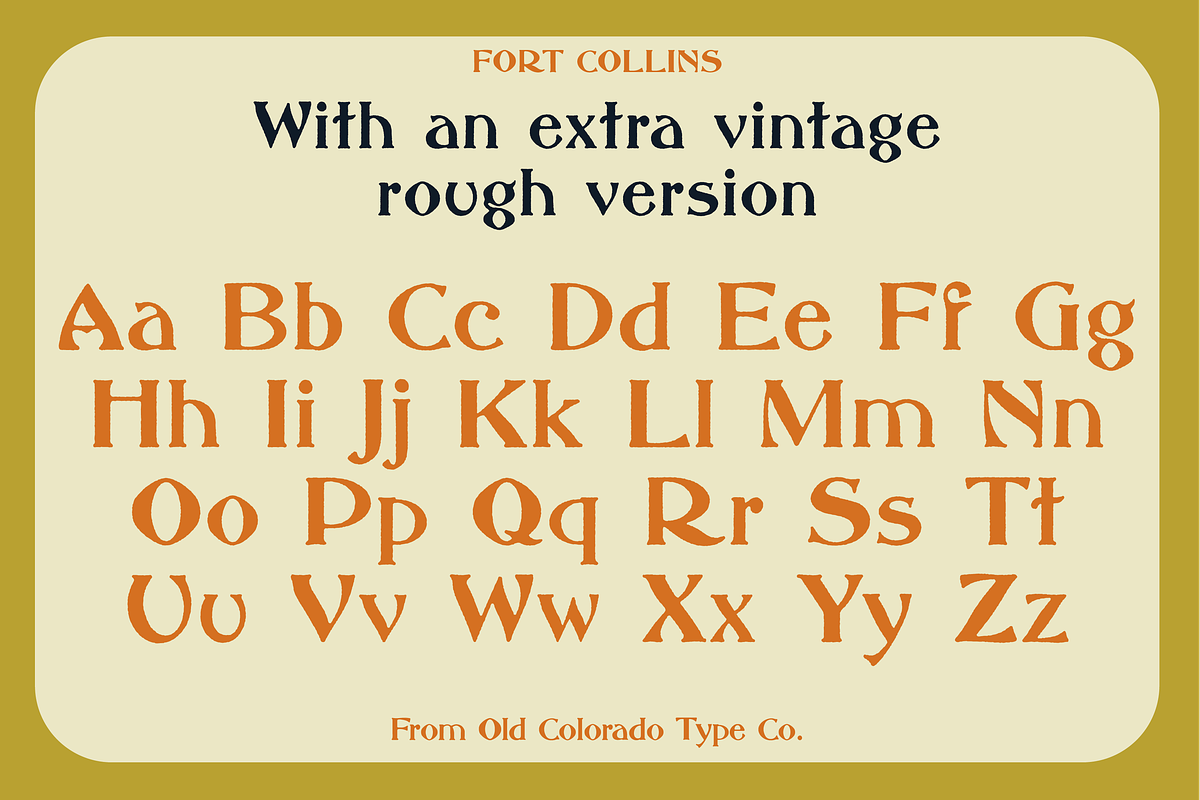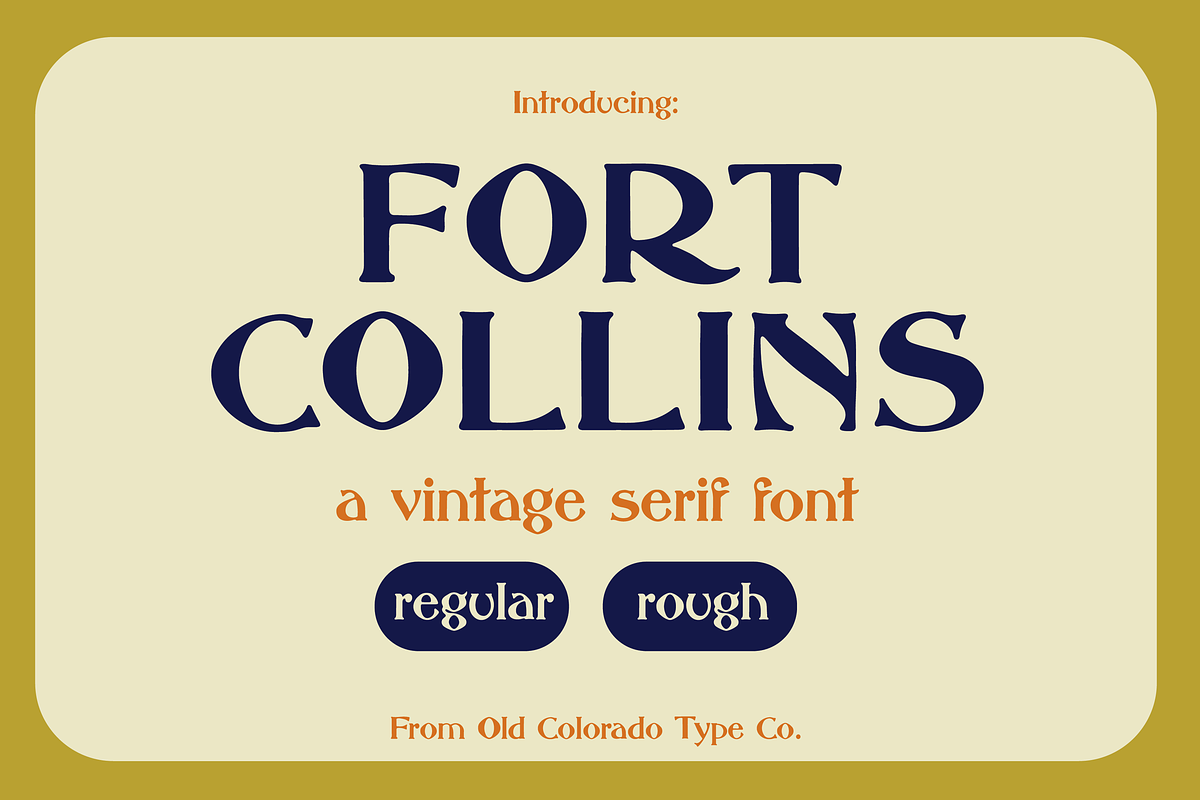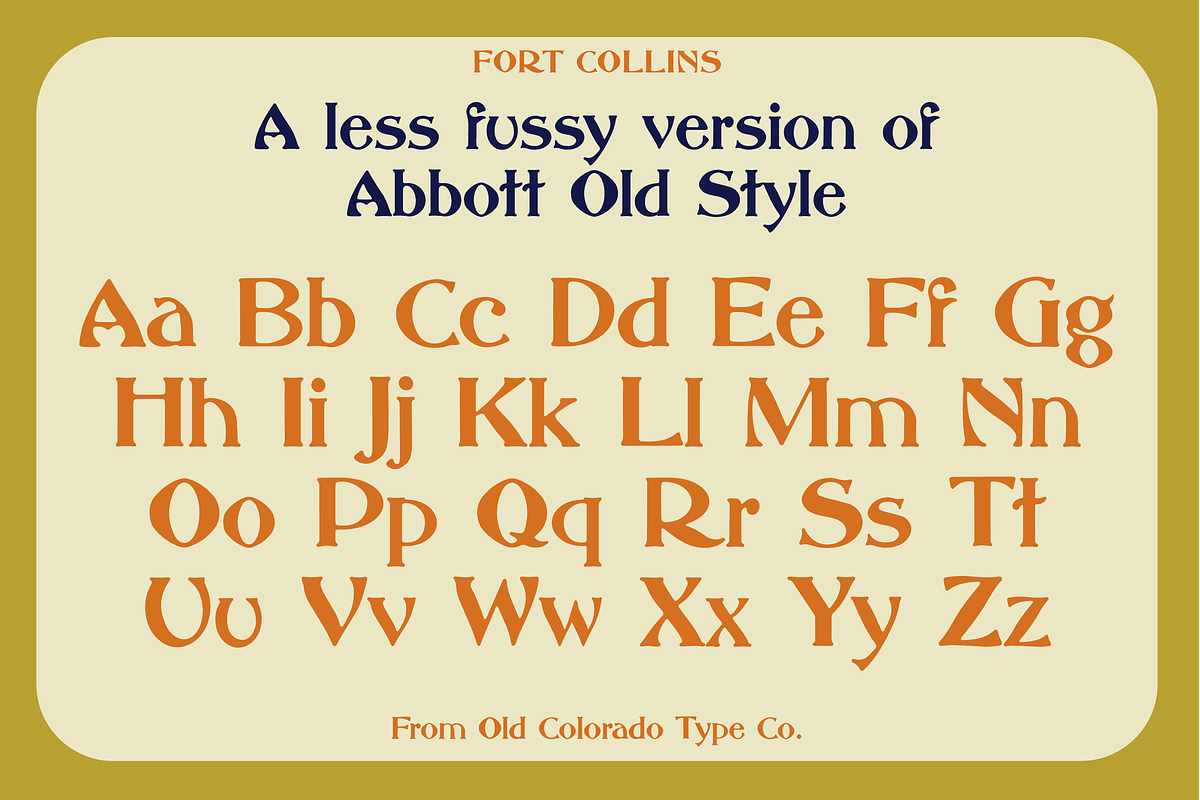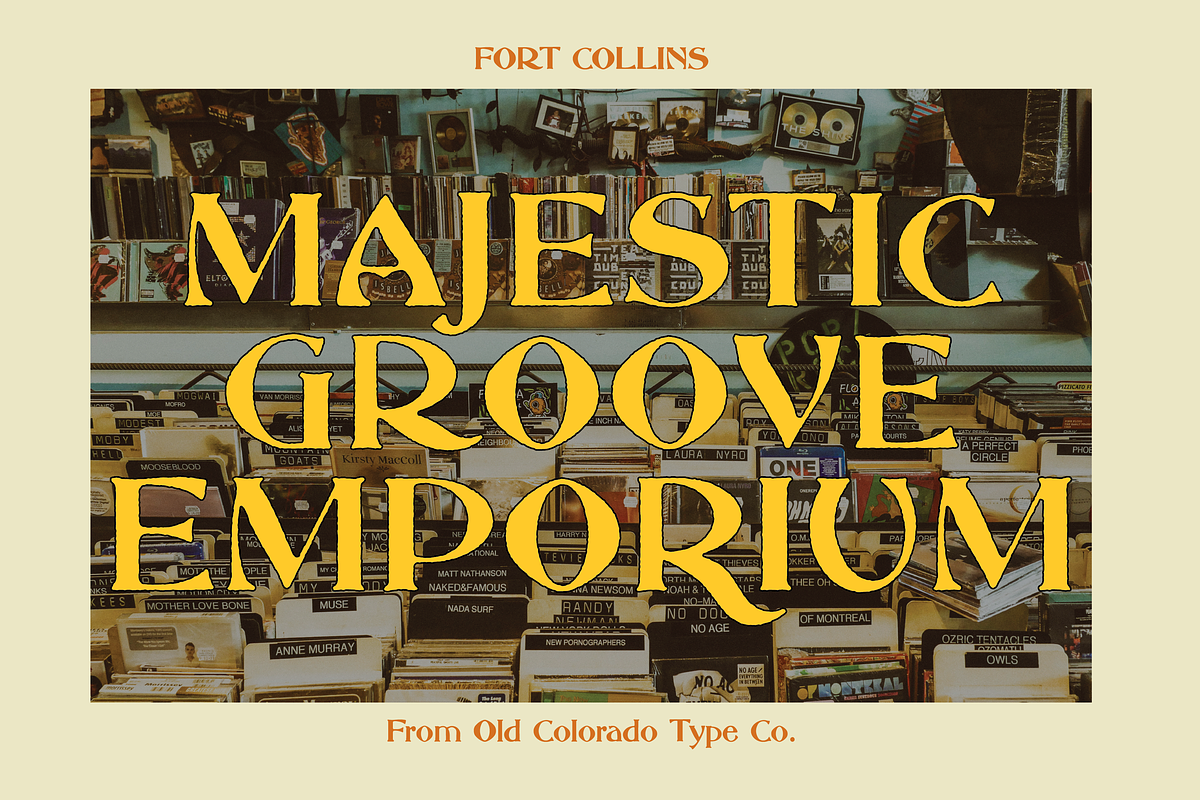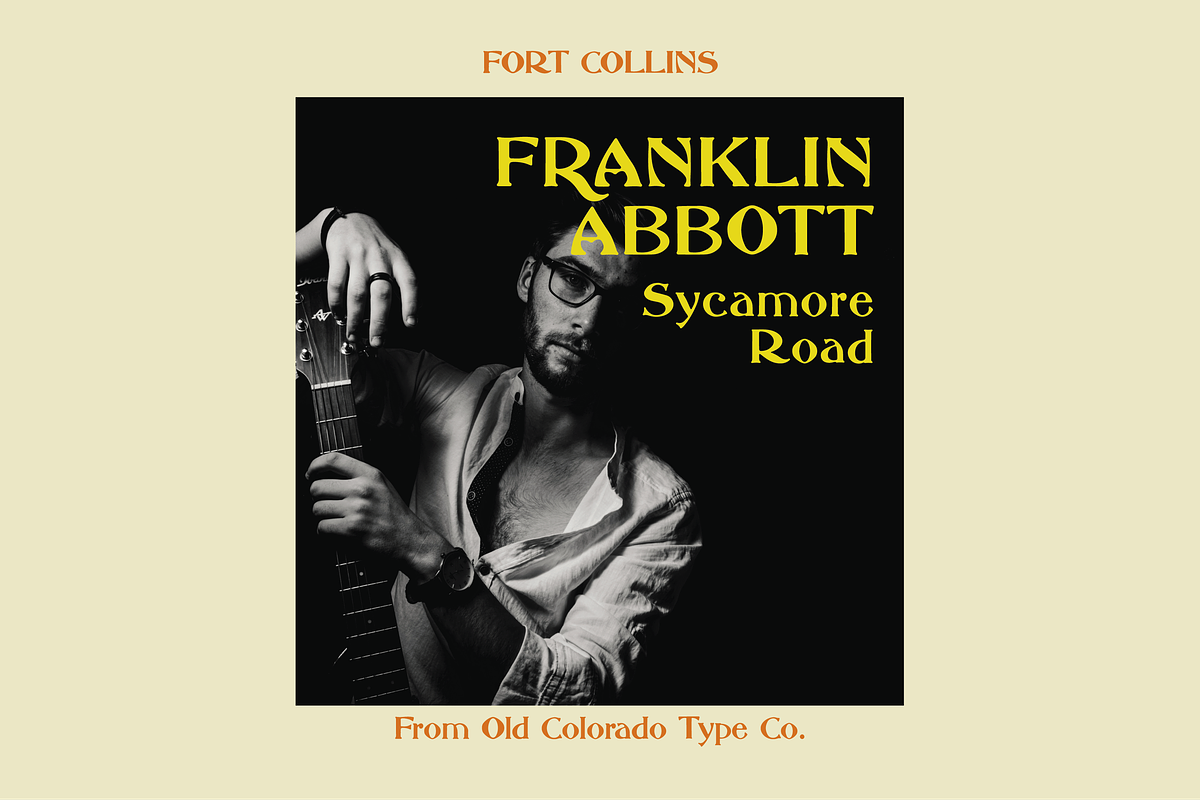
FORT COLLINS by Old Colorado Type Co
A less fussy version of Abbott Old Style: the favorite font of album covers or anyone wanted to evoke a classic 70s look. This includes a regular version and a slightly roughened version for anyone wanting to create a "worn" look.